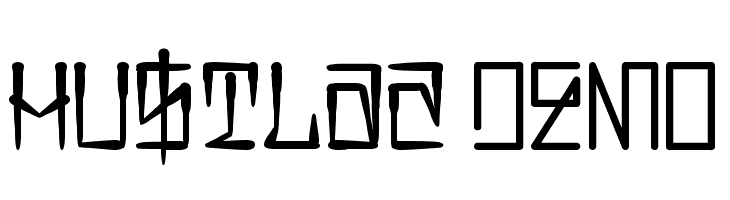
A bold, jagged, and expanded italic font with a chaotic and energetic style.
A bold, jagged font with sharp, angular cuts and a distressed appearance.
( Iordanis Passas - http:/ip-art.info )
A rebellious, brush-stroke font with jagged edges and dynamic energy.
( Irina ModBlackmoon - modblackmoon.com/ )
A bold, jagged, and distressed font with a grunge aesthetic.
( Jérôme Delage )
A bold, distressed font with a grunge-inspired, textured style.
( Jérôme Delage )
A distressed, chaotic font with sharp, jagged edges and a rebellious aesthetic.
( Muhammad Fathi Al Ghazi - creativemarket.com/fathialghazi )
A bold, graffiti-inspired font with sharp, angular lines and a rebellious aesthetic.
( Richie Mx - Ricardo Saul Castellanos Pabello - www.facebook.com/rs.desiign )
A bold, angular font with a graffiti-inspired, edgy style.
( Richie Mx - Ricardo Saul Castellanos Pabello - www.facebook.com/rs.desiign )
A bold, edgy font with angular lines and a modern, rebellious style.
( Typodermic Fonts - Ray Larabie - www.typodermicfonts.com/ )
Bold, angular graffiti-inspired font with a dynamic urban style.